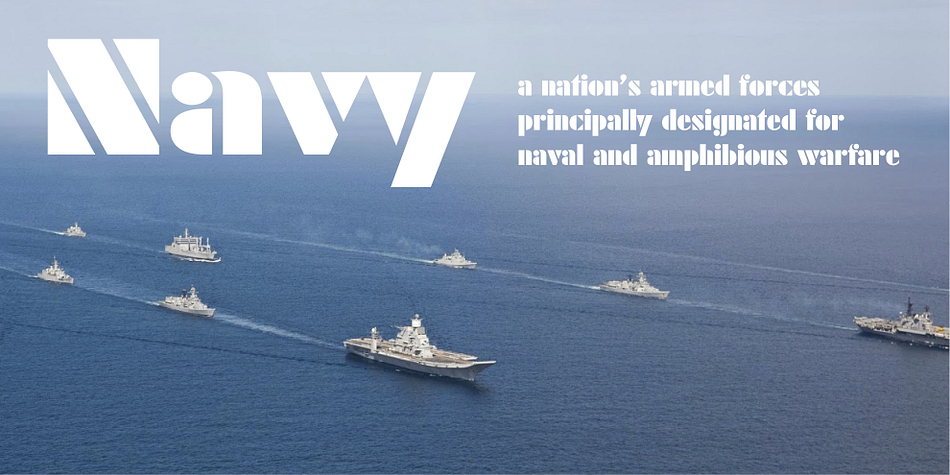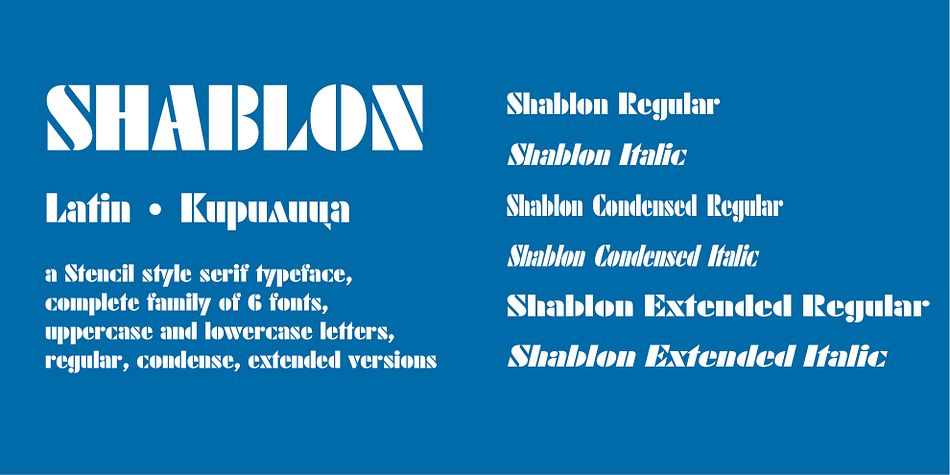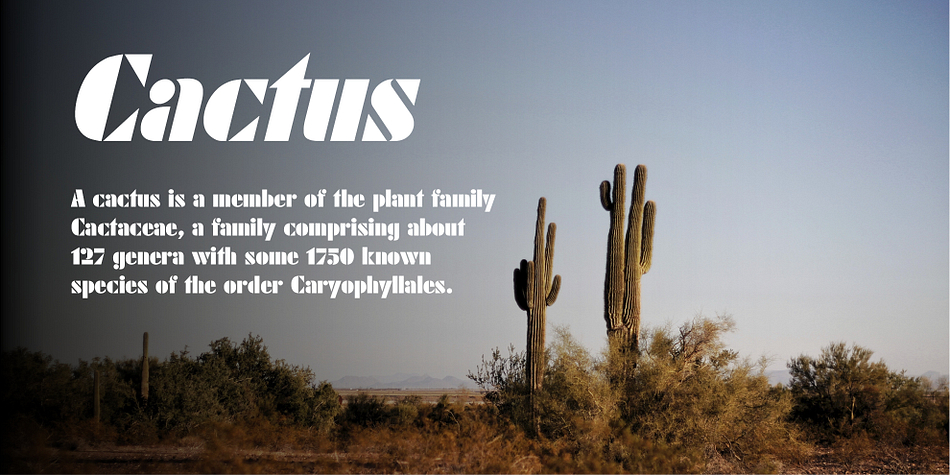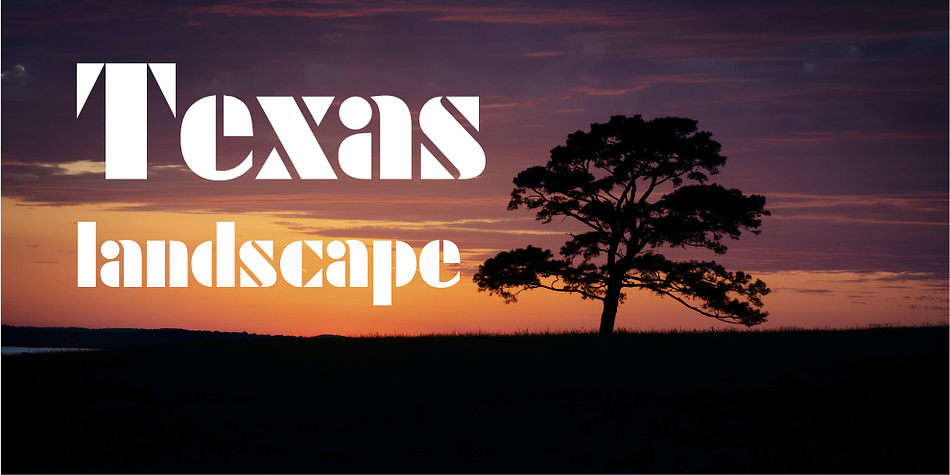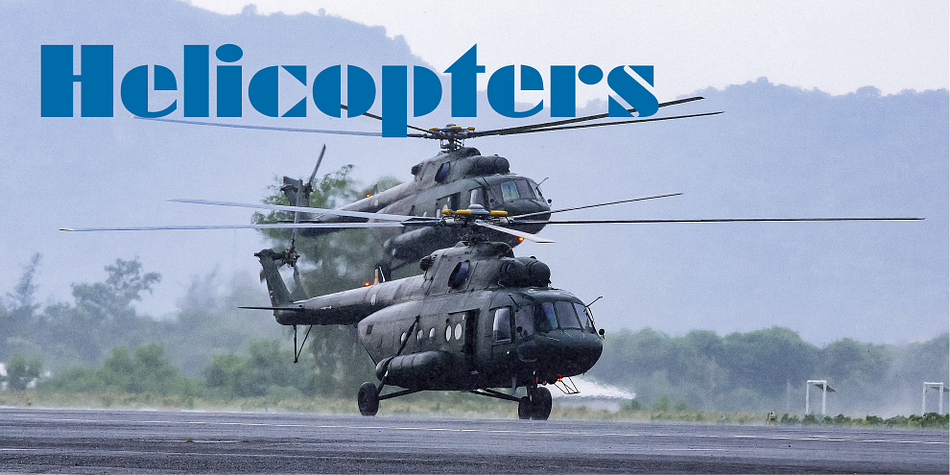
Shablon
Designed by Jivko Stankulov, Shablon is a stencil font family. This typeface has six styles and was published by Context Ltd.
Shablon is a Stencil style serif typeface. The family consists of 6 fonts: Shablon Regular, Shablon Italic, Shablon Condensed Regular, Shablon Condensed Italic, Shablon Extended Regular, Shablon Extended Italic. Every font includes uppercase and lowercase letters. You can use Shablon for graphic designs that call for a rough-and-ready look, a military look, or even to create real stencils for signs and marking boxes or luggage.
Shablon continues the design of Shablon CYR, created in 1994 by Jivko Stankulov. A number of shortcomings in the construction of the glyphs have been eliminated, and the typeface as a whole has been updated.